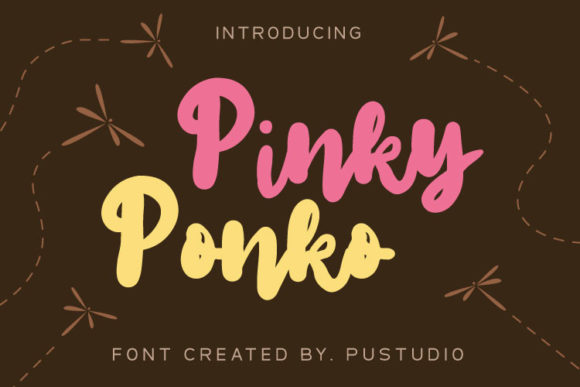
Introducing Pinky Ponko Font - The Ultimate Expression of Joy and Playfulness!
Step into a world of enchantment with our extraordinary Pinky Ponko Font, a captivating symphony of flowing curves and playful shapes that will bring life to your creative endeavors. Experience the sheer joy of crafting eye-catching logos, captivating branding, and heartfelt quotes that leave an indelible mark on the hearts of your audience. Prepare to be mesmerized as every letter dances across the page, carrying your message with an air of irresistible charm and whimsical delight.
With Pinky Ponko, you'll embark on a creative journey like no other. Its cursive charm, reminiscent of a gentle summer breeze, will elevate your designs to new heights of beauty and elegance. Each meticulously crafted letter boasts a unique and enchanting touch, ensuring that your creations come alive with an energy and vibrancy that will captivate and inspire.
Embrace the versatility of Pinky Ponko and witness how effortlessly it adapts to a myriad of creative projects. Whether you're designing stunning wedding invitations, crafting personalized greeting cards, or injecting a touch of whimsy into your social media posts, Pinky Ponko will effortlessly elevate your words and make them shine. Its charming personality knows no bounds, making it the perfect choice for adding a dash of magic to any project.
As a script font, Pinky Ponko exudes an aura of warmth and approachability, making it an ideal choice for creating logos and branding that leave a lasting impression. Its flowing lines and graceful curves evoke a sense of trust and reliability, inviting customers to engage with your brand on a deeper level. Unleash the power of Pinky Ponko and watch as your brand blossoms into a beacon of creativity and distinction.
So, dear creative soul, do not let this moment pass you by. Dive into the realm of Pinky Ponko and let your imagination run wild. With its boundless versatility and captivating charm, Pinky Ponko will transform your creative projects into masterpieces that dance with joy and enchant the hearts of all who behold them. Embrace the magic of Pinky Ponko today and embark on a journey of creative fulfillment like never before.